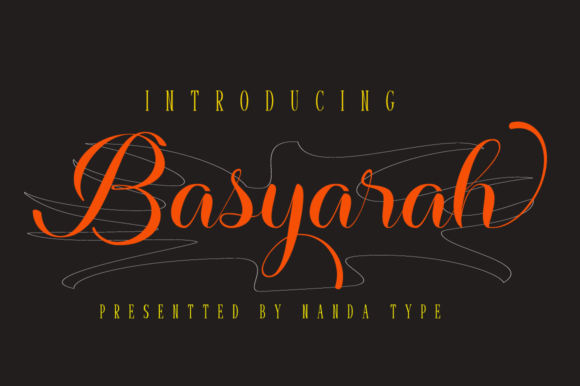
Journey into the realm of elegance and sophistication with Basyarah Font, a mesmerizing script font that captivates the senses and breathes life into your creative endeavors. Nandatype, the font's creator, has meticulously crafted each letterform with intricate details that dance across the page, leaving a trail of visual delight. Basyarah's enchanting curves and delicate flourishes exude an air of timeless charm, making it the perfect choice for those seeking a touch of luxury and distinction in their designs.
Immerse yourself in a world of endless possibilities as you explore the versatility of Basyarah Font. Its graceful strokes effortlessly adapt to a myriad of design projects, from elegant invitations and alluring branding to captivating social media posts and eye-catching marketing materials. Whether you're crafting a heartfelt love letter, designing a captivating logo, or simply adding a touch of sophistication to your everyday correspondence, Basyarah Font rises to the occasion, elevating your words with its inherent beauty and charm.
Unleash your creativity and let your imagination soar with Basyarah Font. Its PUA encoding grants you effortless access to a treasure trove of glyphs and sweeps, empowering you to unleash your artistic vision without limitations. Experiment with letter combinations, create stunning monograms, or incorporate intricate embellishments to add a touch of whimsy to your designs. The possibilities are boundless, awaiting your skilled hands to transform them into masterpieces.
With Basyarah Font as your creative companion, you'll discover a newfound joy in the art of typography. Its user-friendly nature makes it accessible to both seasoned designers and those just starting their design journey. Experience the sheer delight of watching your words come alive, imbued with a grace and refinement that will leave a lasting impression on your audience.
As you delve deeper into the world of Basyarah Font, you'll uncover a hidden treasure—its ability to evoke emotions and forge connections. Its enchanting script dances across the page, stirring hearts and capturing imaginations. Use it to craft heartfelt messages that resonate with your readers, creating an emotional bond that transcends the boundaries of words. Basyarah Font is more than just a collection of letters; it's a conduit for expressing your innermost thoughts and feelings, leaving an indelible mark on those who encounter it.